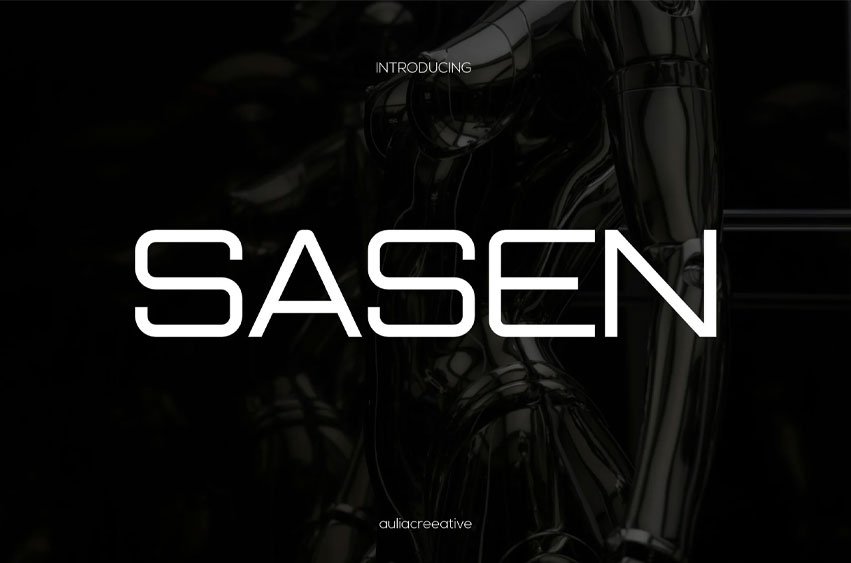
Sasen Font
Sasen Font Sans Minimalist DIsplay Logo Font is and awesome and authentic display font.
Every letter has a unique and beautiful touch, which will make your design come alive!